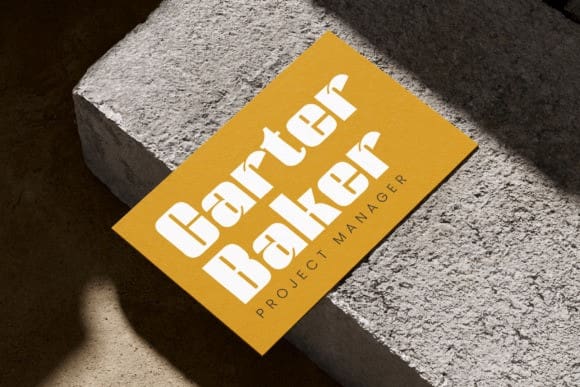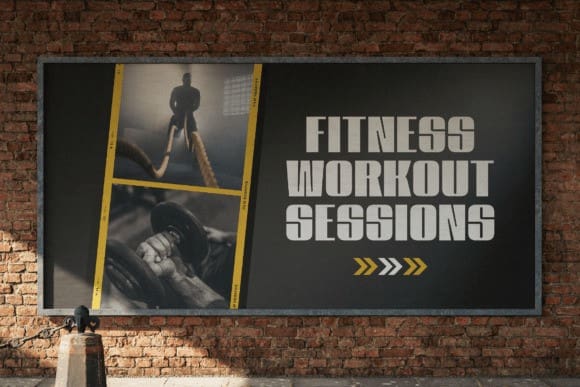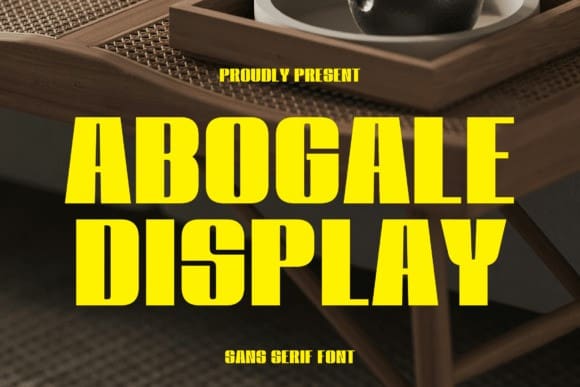
Abogale Font
Abogale Font is a striking bold sans-serif font designed to make a strong impact. With its sharp edges and dynamic letterforms, this font is perfect for eye-catching headlines, branding, posters, and editorial designs. Whether you’re working on a modern business card, a stylish magazine cover, or bold social media graphics, Abogale Font ensures your text stands out with confidence.